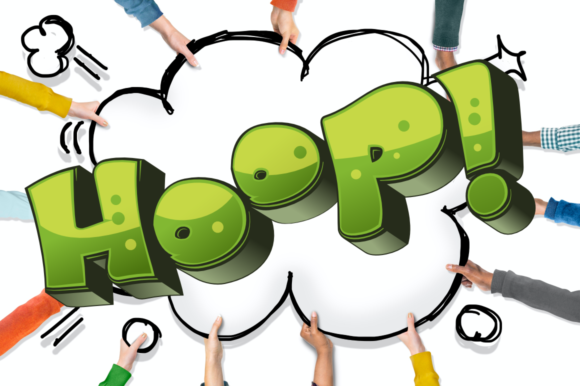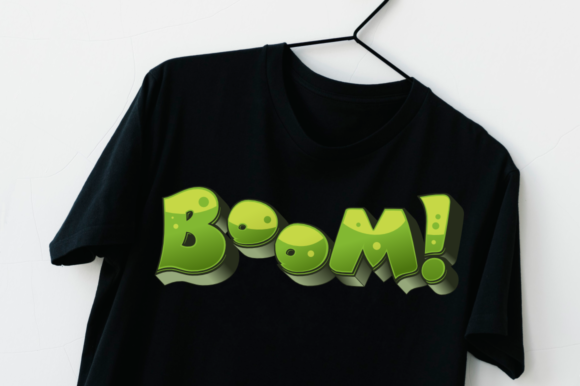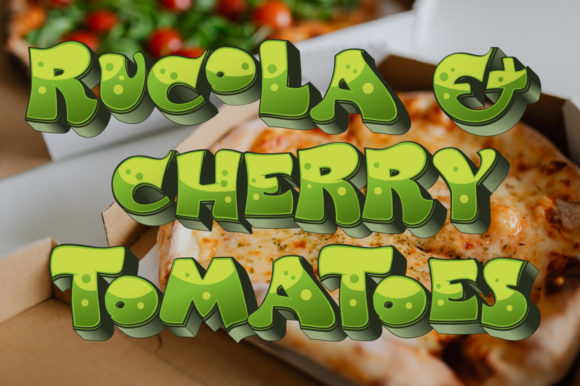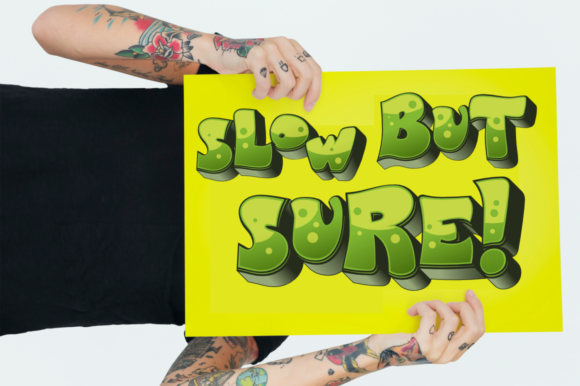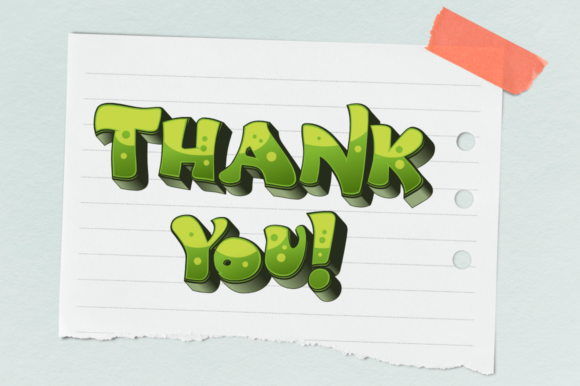
Get Ready to Party with Big Party O2 Green Font
You know that feeling when you’re brainstorming ideas for a new crafting project and suddenly, a spark of creativity hits you? You envision vibrant colors, playful patterns, and a dash of whimsy. That’s exactly what the Big Party O2 Green Font is all about – igniting your imagination and helping you create truly unforgettable projects.
This fantastic color font is designed to bring a pop of fun and energy to your designs. With its unique look, you’ll be able to craft projects that stand out from the crowd. Whether you’re a seasoned designer or just starting out, the Big Party O2 Green Font is an invaluable tool that will help you unleash your creativity and produce truly outstanding results.
- Font Family: Big Party O2 Green Font is a sans-serif font family designed for use in digital and print media.
- Unique Characteristics: Big Party O2 Green Font features a bold and playful design, with a unique green color scheme that adds a touch of fun and energy to any project.
Big Party O2 Green Font Review
Overall, I think the Big Party O2 Green Font is a fun, lively font that’s perfect for capturing a carefree atmosphere. ✨ It has a unique energy to it that’s sure to grab attention and add some personality to your design projects.
- ✨ Versatility: Big Party O2 Green Font can be used in a variety of contexts, from party invitations to social media graphics, and it always looks great.
- ✨ Creativity: The font’s playful nature encourages designers to think outside the box and come up with innovative ideas.
- ✨ Emotional Connection: The font’s bright, cheerful color can evoke feelings of excitement and joy in the viewer.
- ⚠️ Limited Legibility: In certain contexts, such as small text or complex layouts, the font’s playful nature can make it difficult to read.
- ⚠️ Overuse: Big Party O2 Green Font can become overwhelming if used too extensively, so it’s essential to balance it with other fonts and design elements.
Overall, I’d give the Big Party O2 Green Font 4 out of 5 stars. It’s a great addition to any designer’s toolkit, but it’s essential to use it judiciously to avoid overwhelming the viewer.
The Big Party O2 Green Font is ideal for:
1. Party invitations and decorations.
2. Music festival and event branding.
3. Green-themed marketing materials.
4. Unique and playful typography projects.